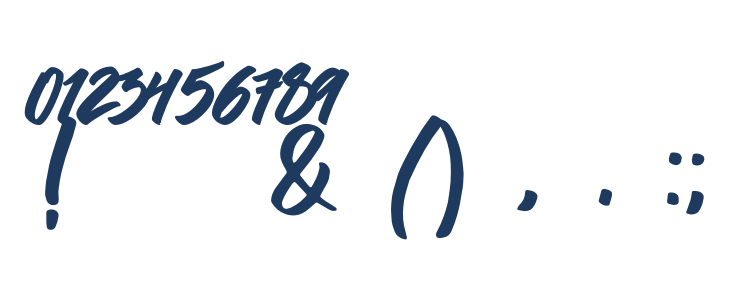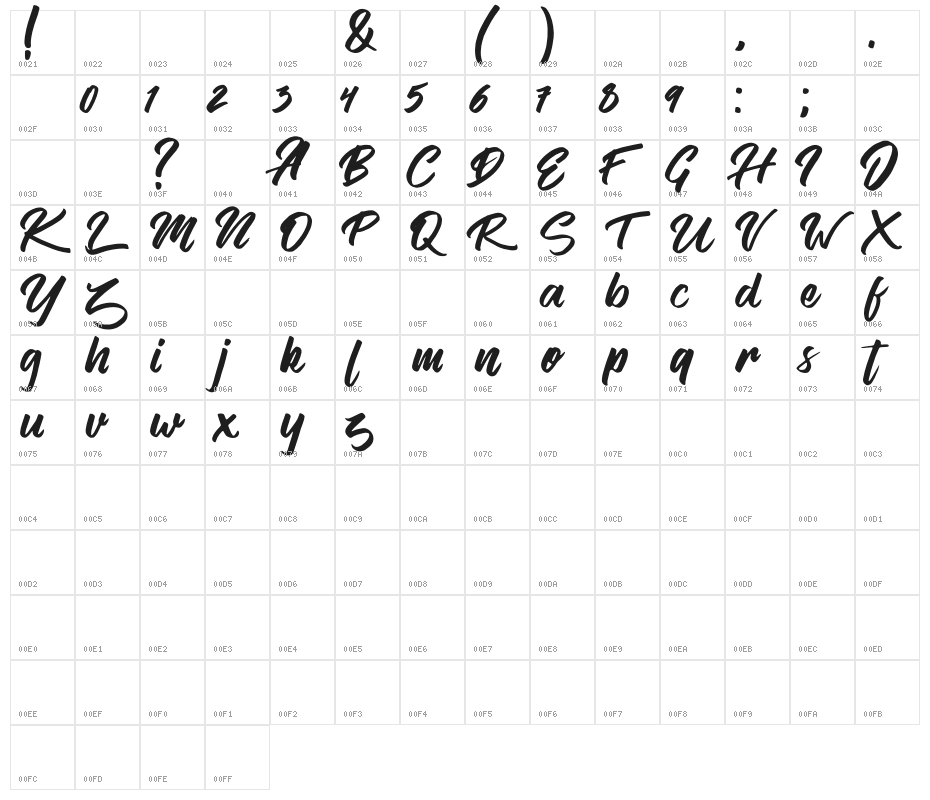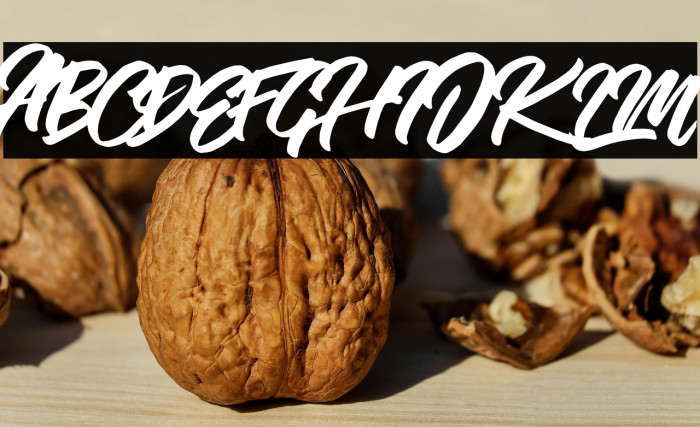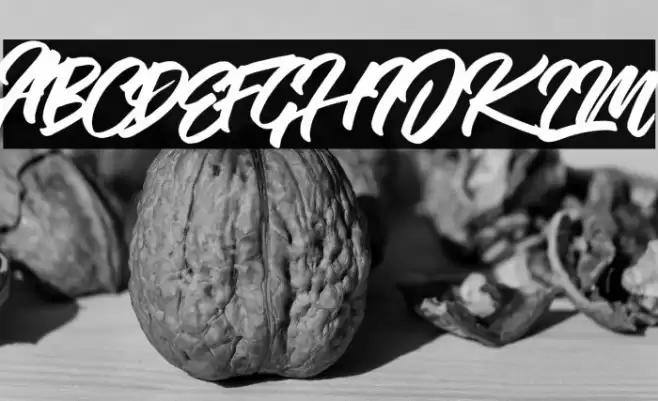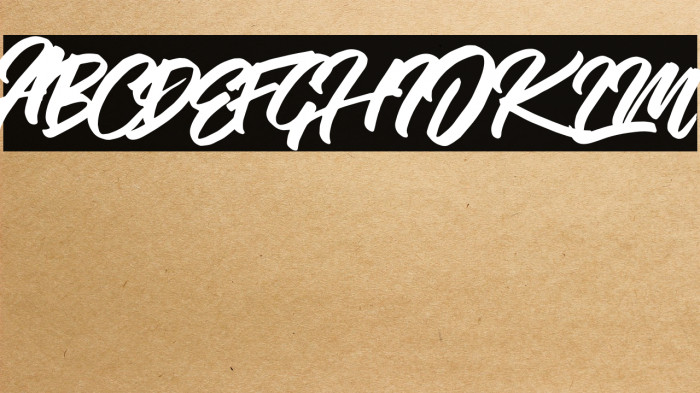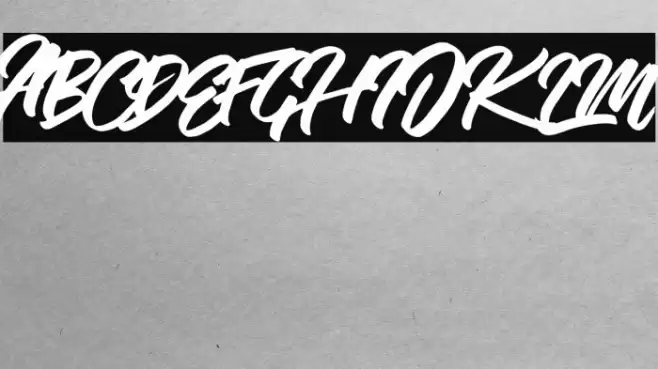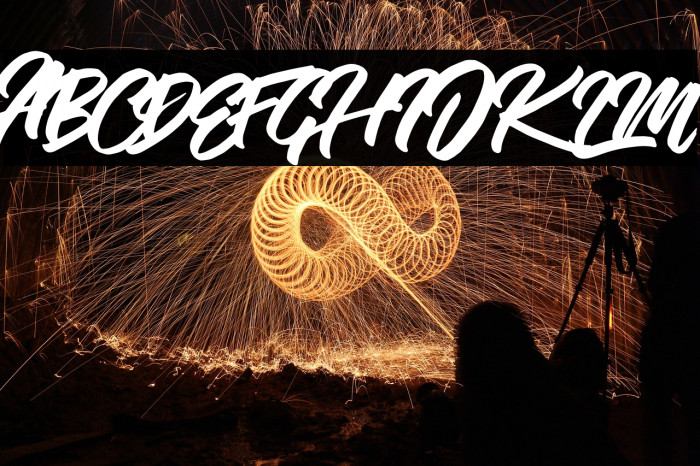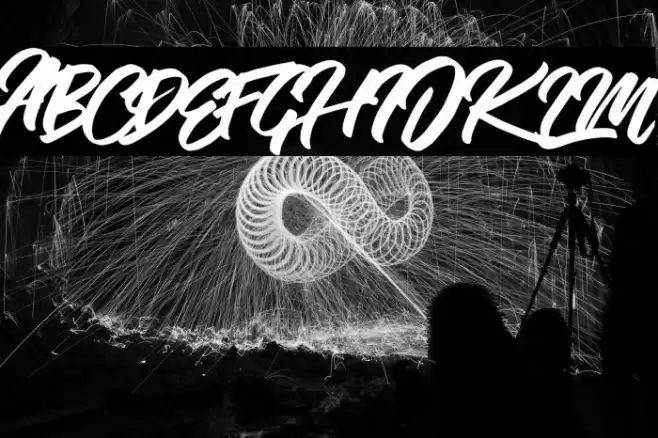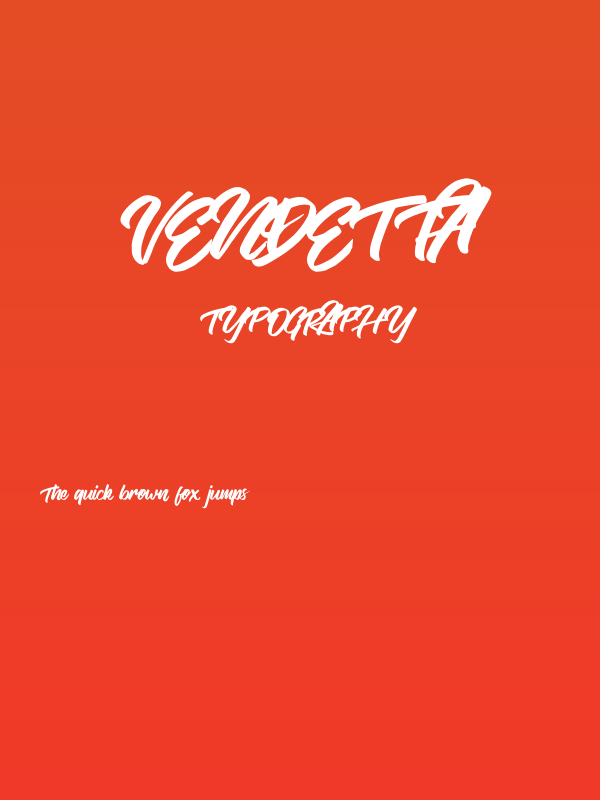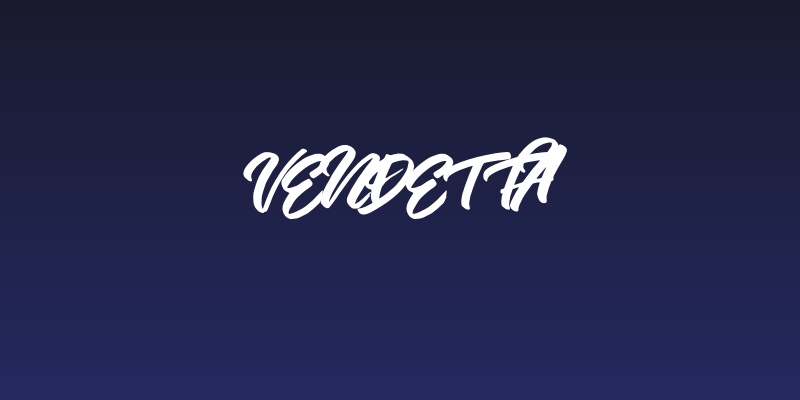
Vendetta Font
Vendetta Description
This font exudes a bold and dynamic presence with its brush script style, characterized by thick, flowing strokes that convey a sense of energy and movement. The uppercase letters are particularly striking, with a slightly slanted orientation that enhances the font's lively appearance. The lowercase letters maintain a consistent style, complementing the uppercase with their fluid curves and connected forms. Numbers and special characters are equally expressive, maintaining the overall aesthetic. This font is ideal for projects that require a strong visual impact, such as branding, advertising, and poster design.
| Proposed Projects | Branding, advertising, poster design, and any project needing a strong visual impact. |